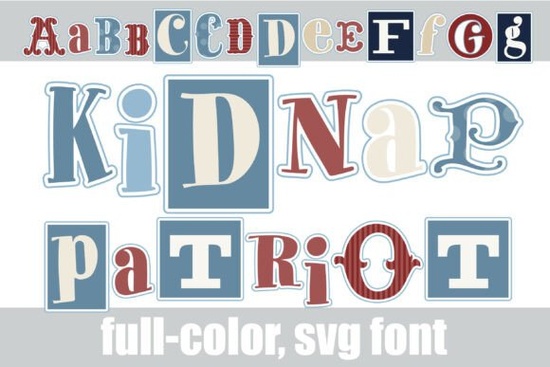
If you are looking for a typeface that instantly adds mystery and retro grit to your projects, Kidnap Patriot Font might be exactly what you need. Unlike standard lettering tools that provide uniform spacing and clean lines, this digital font mimics the chaotic energy of old-fashioned ransom notes. Designed to look like letters clipped from newspapers and magazines, it brings a full-color, textured aesthetic straight into your vector software. It is perfect for creators who want that handmade, rebellious vibe without spending hours physically cutting out paper.
What Does a Ransom Note Style Offer?
Historically, the ransom note style was used to convey a sense of urgency and danger, often found in true crime stories or underground zines. Today, designers adopt this look to signal something gritty, alternative, or nostalgic. This font captures that feeling by mixing serif boxes with striped fills and decorative curly lines. You get a collage effect right out of the box, saving you from manually selecting individual letter shapes in Illustrator. The preset collage look includes a handsome palette of slate blue, dark navy, cream, and crimson, which creates high contrast on both light and dark backgrounds.
Because it uses SVG technology, you maintain crisp edges even when scaling images up for large format prints. If you compare this to working with a standard outline font, the effort is significantly reduced. Standard fonts usually require tracing, converting to outlines, and manually adjusting spacing to fake the ransom effect. With this tool, those layers are already sorted. You simply select your text, apply the style, and export.
Best Applications for This Type Design
This asset works particularly well for niche creative fields where standard typography feels too corporate or clean. Consider using it for merchandise aimed at fans of horror, mystery, or punk rock music. Here are a few ways people typically utilize these files:
- True-Crime Podcast Covers: The visual chaos supports storytelling about missing persons or unsolved cases effectively.
- Streetwear Apparel Lines: Edgy t-shirts often benefit from the distressed, multi-color lettering this style provides.
- Mystery Novel Book Covers: It signals genre immediately to readers browsing shelves online.
- Album Jackets: Alternative rock bands can use the varied height and textures to match musical intensity.
When creating high-impact editorial layouts, the broken symmetry keeps the reader’s eye moving across the page. However, readability remains important for titles. You might pair this display font with a simple sans-serif body text to balance the composition. For more inspiration on using vibrant color blocks in your work, you might also browse through summer vibes font colorful fonts collections to see how different color palettes affect visual impact.
Saving Hours on Manual Editing
Many designers avoid ransom styles because the process of collecting letters from various sources is tedious. This product solves that problem by offering completely pre-arranged collage looks. When you purchase Kidnap Patriot, you gain access to characters that align perfectly. You do not have to worry about kerning between mismatched sizes, as the font engine handles most of the heavy lifting. This allows you to finish complex graphic elements faster, giving you more time to focus on branding strategy or client revisions.
Tips for Print on Demand Sellers
Practical Checklist Before Exporting
- Convert Text to Outlines: Ensure all text elements are editable vectors without relying on external installations.
- Check Contrast Ratios: Verify that the cream and slate blue text stands out clearly against your background.
- Review Layer Order: Ensure decorative curly lines appear behind or over letters as intended for the collage depth.
In summary, this style bridges the gap between messy, authentic clippings and professional digital output. It is ideal for hobbyists who want a custom look and professionals who need efficiency. By avoiding manual selection, you reduce errors and keep your workflow consistent.